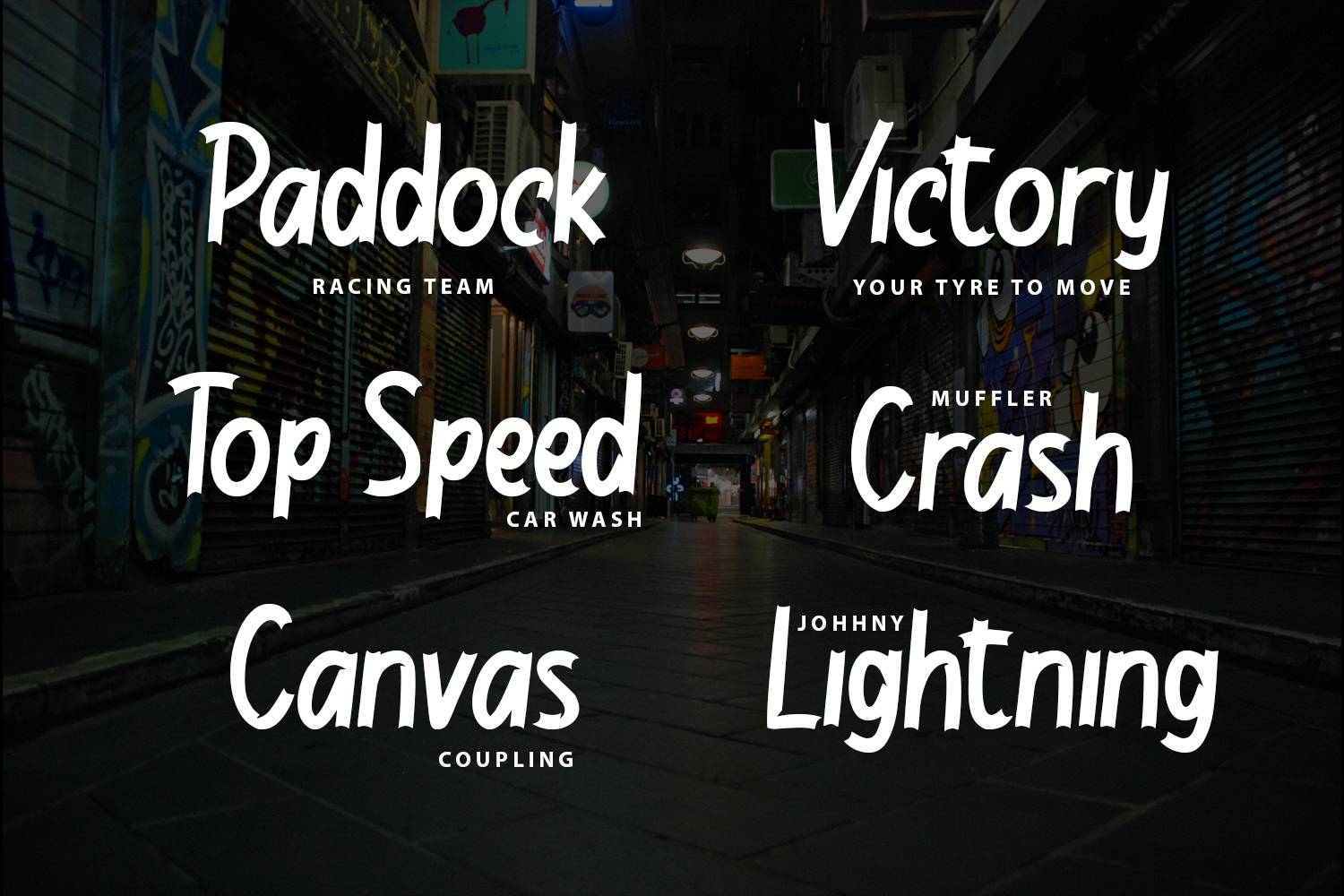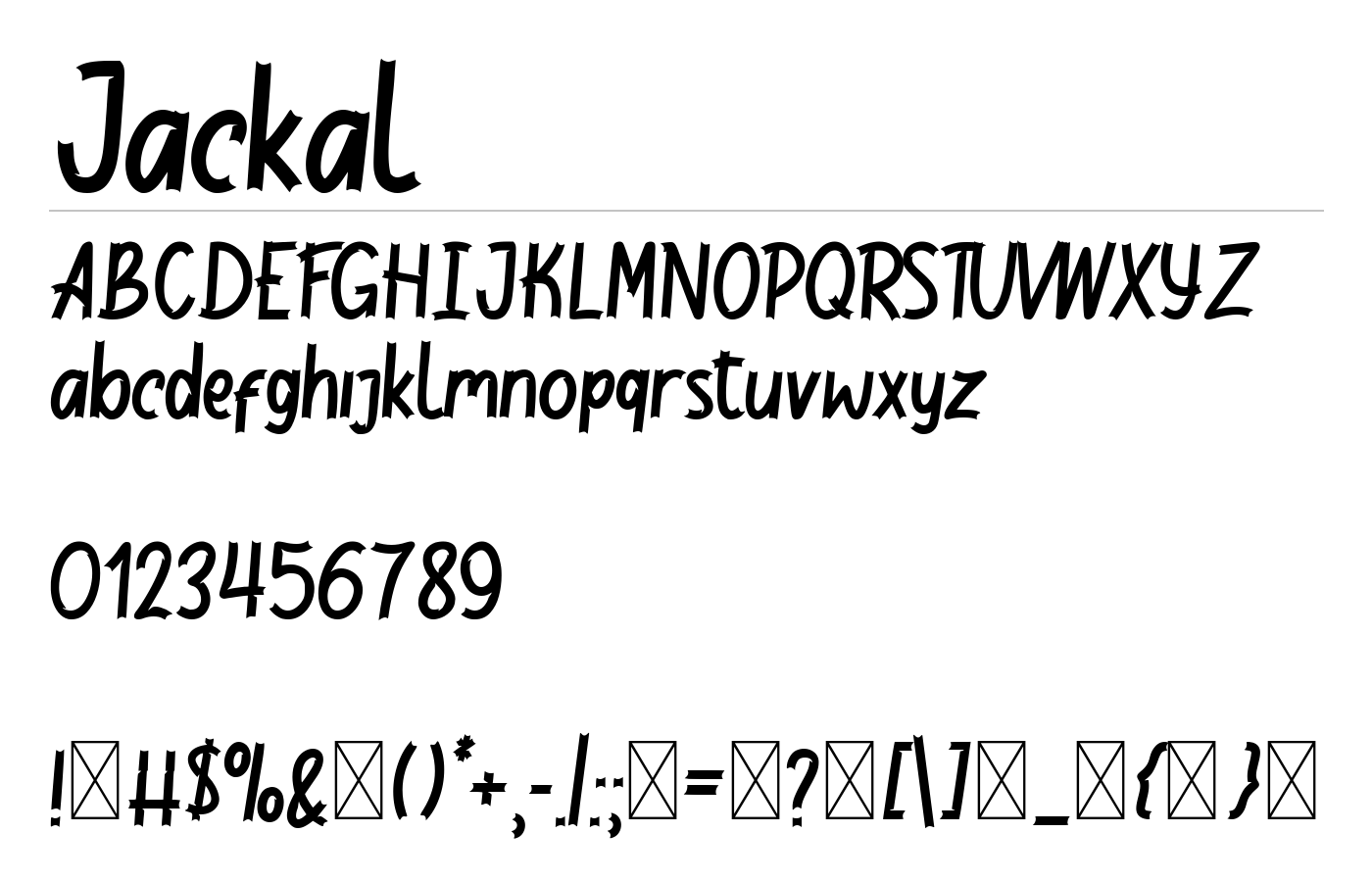
Jackal is a lively sans serif font with an informal, hand-drawn feel, featuring angled strokes and slightly irregular shapes that add personality and energy. Its medium weight and condensed width make it bold yet approachable, ideal for creative and casual branding, posters, or playful headlines where a dynamic, handcrafted style is desired. This font stands out by conveying friendliness and uniqueness, perfect for grabbing attention in designs that want a fun and spirited vibe.
Jackal Font
About Jackal Font